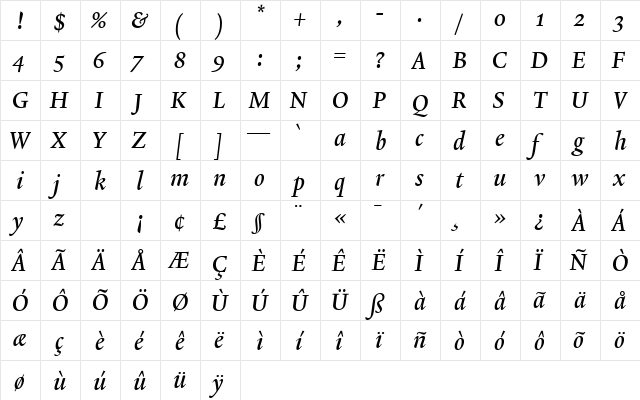
Lexicon No2 Italic B Txt Font Preview
Lexicon No2 Italic B Txt
Design Context for Lexicon No2 Typeface
Lexicon No2 is a composed and adaptable typeface that performs quietly and consistently across a wide range of design contexts. The dynamic lean of this cut emphasises speed and emphasis in any layout.
Pro Tip: Try Lexicon No2 for annotation and caption copy alongside an upright companion — the contrast in angle creates a dynamic but ordered typographic system.